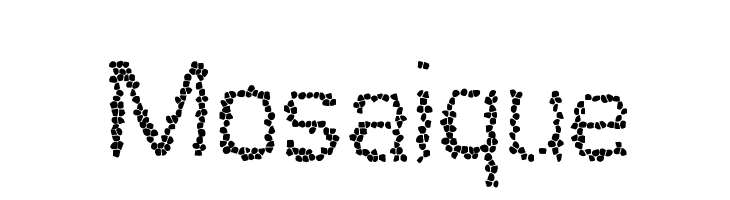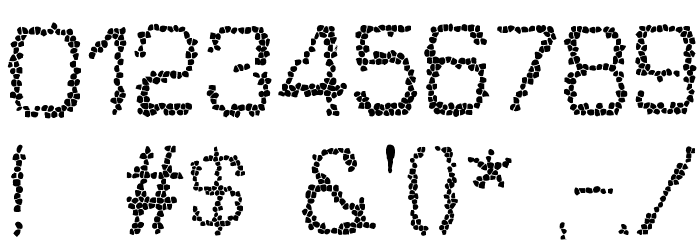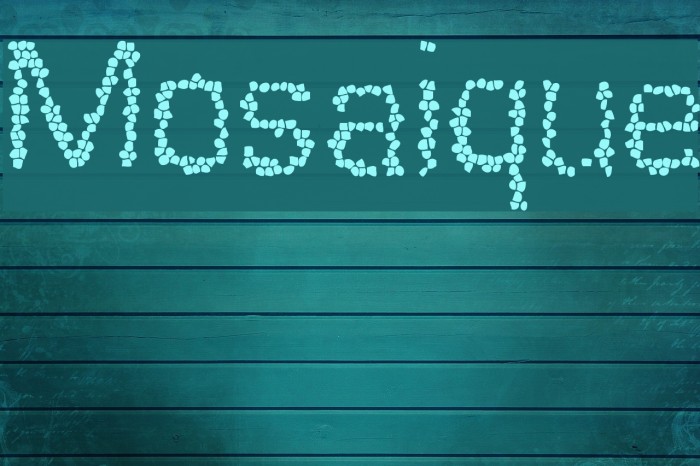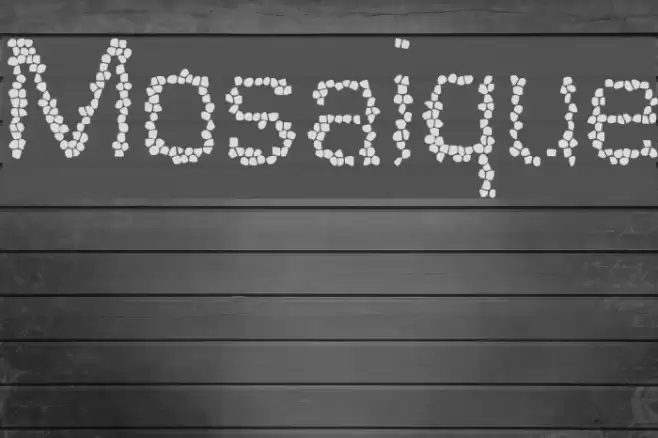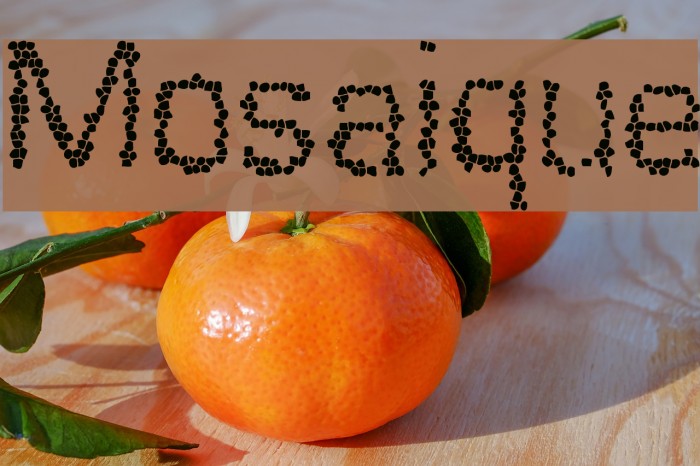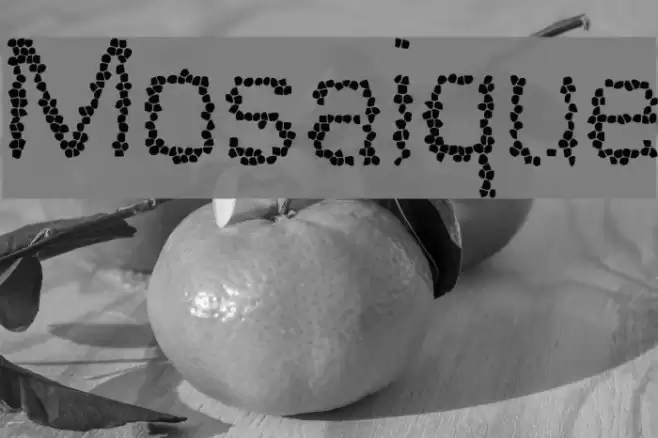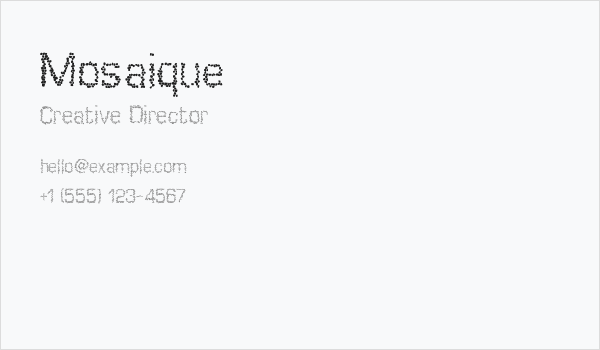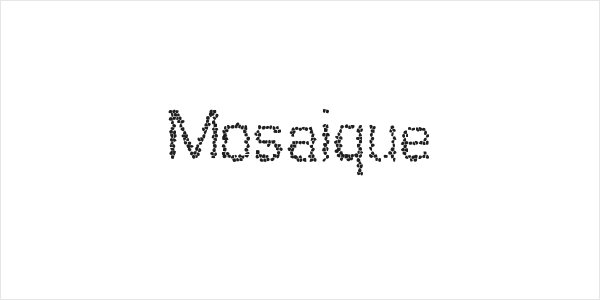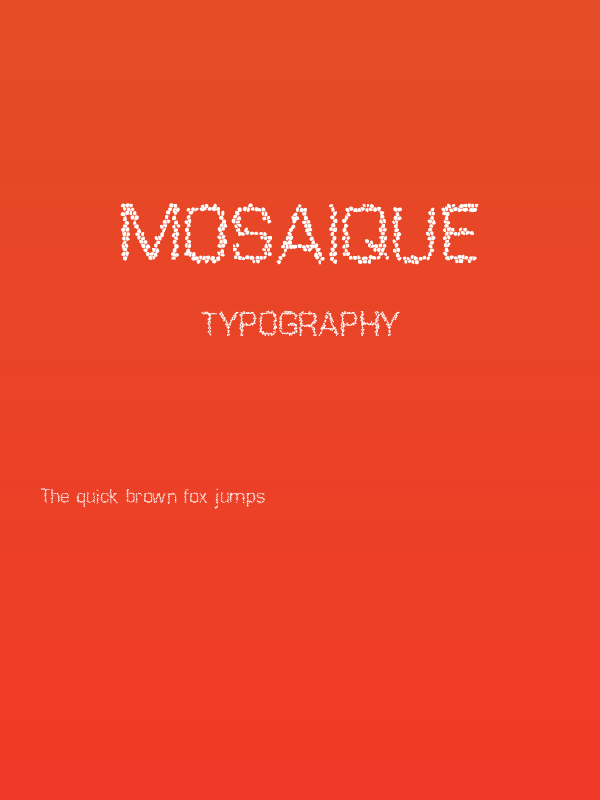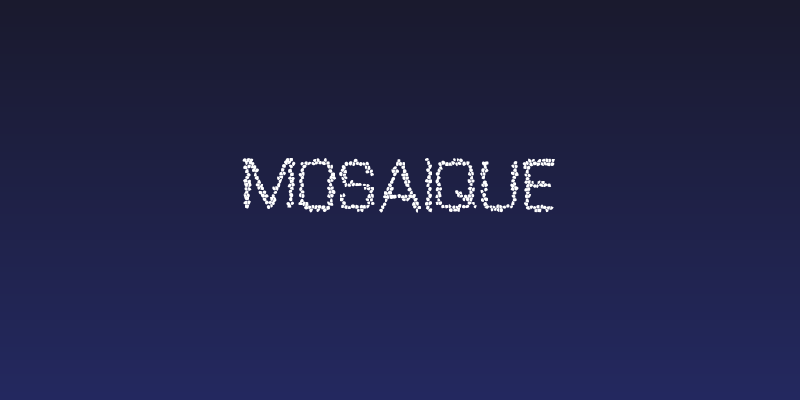
Mosaique Font
Mosaique Description
This font features a unique mosaic pattern, where each character is composed of small, irregularly shaped dots that form the outlines of letters and numbers. The design gives a textured, artistic feel, reminiscent of pointillism or pixel art. The characters maintain a consistent structure, ensuring readability while offering a decorative flair. This font is particularly striking in larger sizes, where the intricate details of the mosaic pattern become more apparent. The overall appearance is both modern and playful, making it suitable for creative projects that require a distinctive visual impact.
| Proposed Projects | Ideal for artistic posters, creative branding, unique invitations, and any project seeking a playful yet modern aesthetic. |